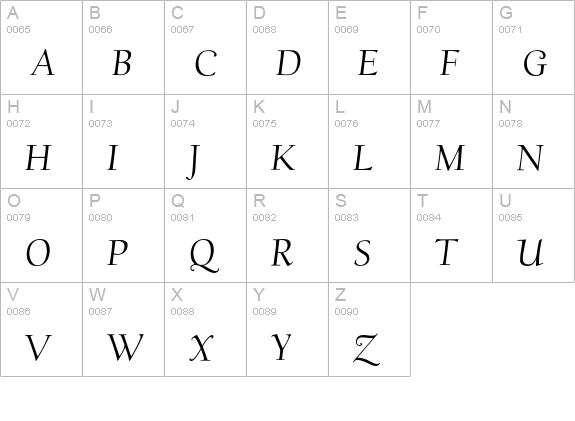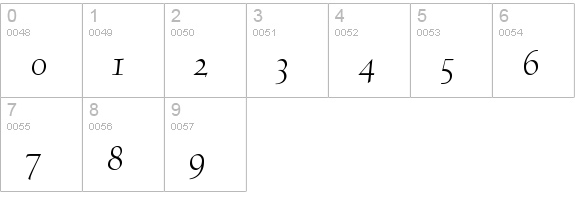
Scripps College OS Std Italic Font Details
Scripps College OS Std Italic is a distinctive, italic variant in the Scripps typeface family \xE2\x80\x94 well suited to design and typography projects.
Scripps College OS Std Italic font is a sophisticated and elegant typeface that exudes an air of timeless beauty. With its delicate curves and graceful strokes, this font is perfect for adding a touch of refinement to any design project. Designed to capture the essence of Scripps College, a renowned liberal arts women's college located in Claremont, California, this font embodies the institution's commitment to academic excellence and intellectual curiosity. The Scripps College OS Std Italic font is a versatile typeface that can be used for a wide range of applications, from editorial design to branding materials. Its italic style adds a sense of movement and fluidity, making it ideal for conveying a sense of sophistication and creativity. One of the best things about the Scripps College OS Std Italic font is that it is completely free. Yes, you read that right! This font is freely available to download at FontsMarket.com, a trusted source for high-quality fonts. Whether you are a student, a professional designer, or simply a typography enthusiast, you can enjoy the beauty and elegance of this font without spending a dime. So why wait? Enhance your design projects with the timeless appeal of the Scripps College OS Std Italic font. Download it for free today at FontsMarket.com and let its graceful charm elevate your creations to new heights.